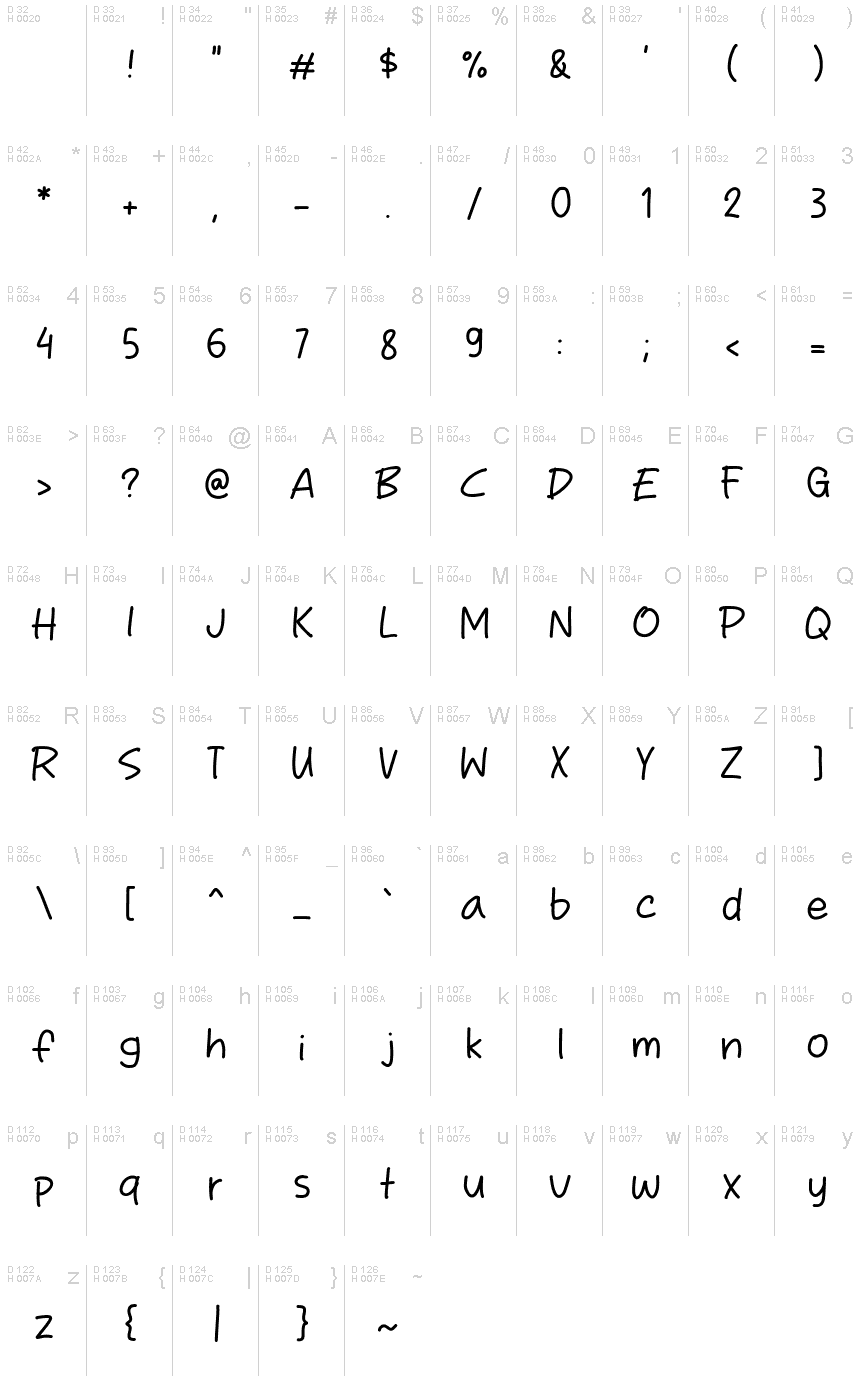
Zumbo City
Zumbo City, designed by Khurasan, is a delightful semi-light handwritten font that brings a modern and cute touch to any design. Its versatility makes it suitable for a wide range of projects.
Use this font to create eye-catching posters that effortlessly capture attention. Craft unique logos that reflect your brand's personality with its playful and charming style. Enhance the visual appeal of magazines and book covers, making them more captivating and engaging for readers. Add Zumbo City to banners and watch as it instantly elevates their visual impact, effectively conveying your message.
This amazing font is perfect for unleashing your creativity across various design projects!